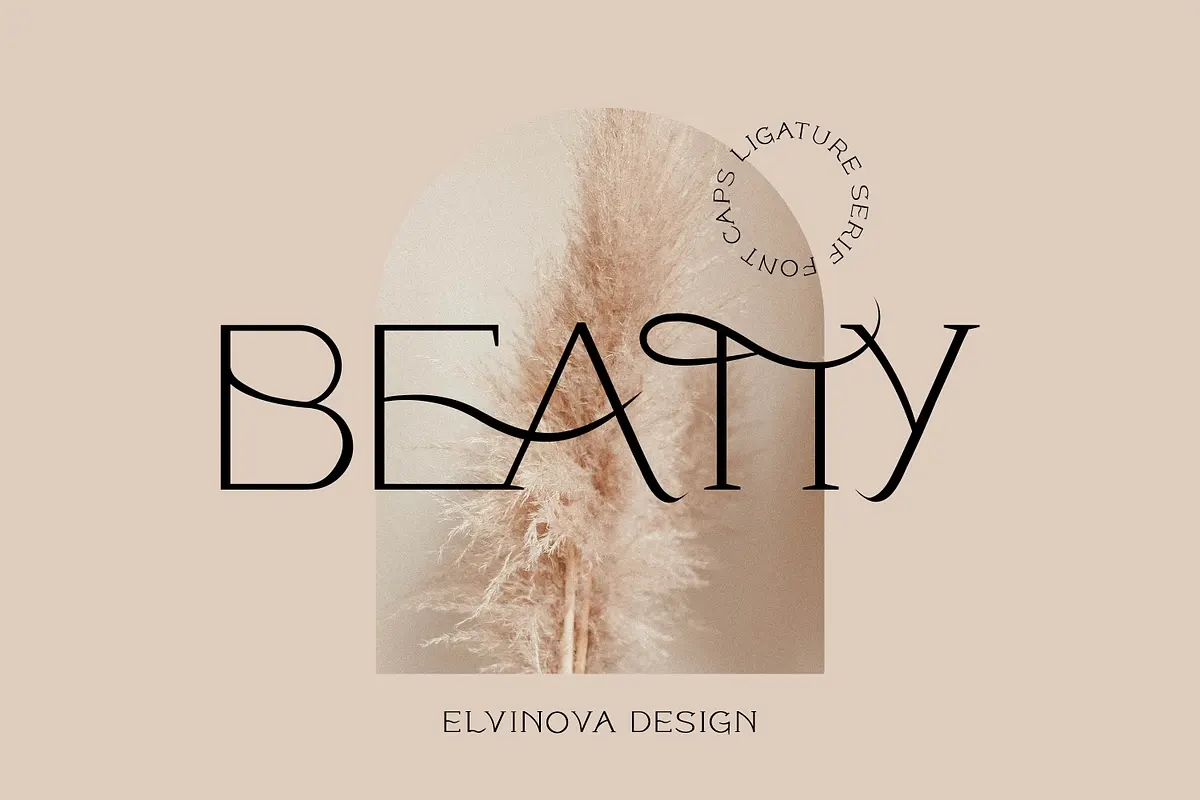
Modern Ligature-Rich Font Free Download is a sleek and contemporary typeface designed to bring a modern touch to your typography. Featuring a variety of ligatures and unique letter combinations, this font adds creativity, elegance, and flair to your designs. Perfect for logos, branding, editorial work, and creative projects that demand sophistication and style.
The ligatures enhance the flow of the typeface, making it ideal for high-end design work where a smooth, connected look is desired. Whether you’re creating for fashion, luxury brands, or sophisticated marketing materials, this font helps make a statement with its refined character.
Add an elegant and unique touch to your designs with the stylish ligatures of this modern font! ✨